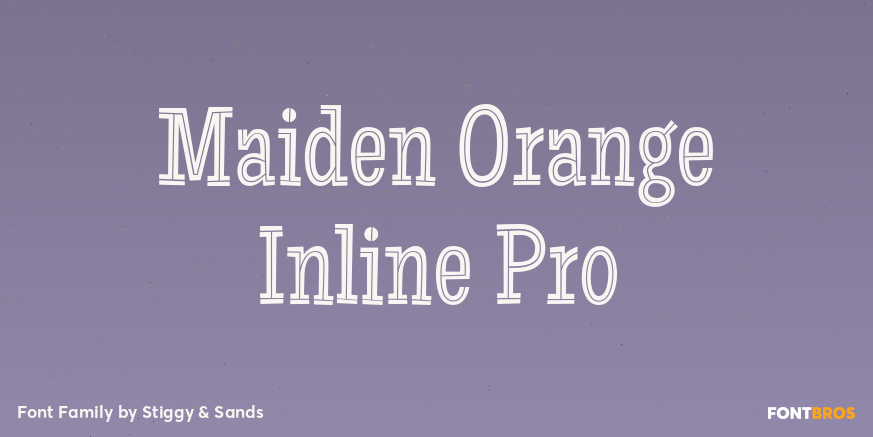
Maiden Orange Inline Pro
About Maiden Orange Inline Pro
A festive spin off our Maiden Orange Pro typeface, Maiden Orange Inline Pro comes packed with all of the features of the original Maiden Orange Pro typeface, but adds a little more visual flavor with hand drawn inline cuts, leaning even more towards the…